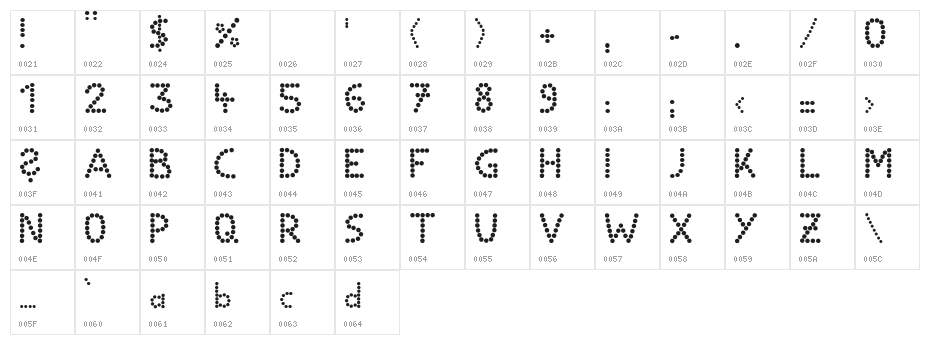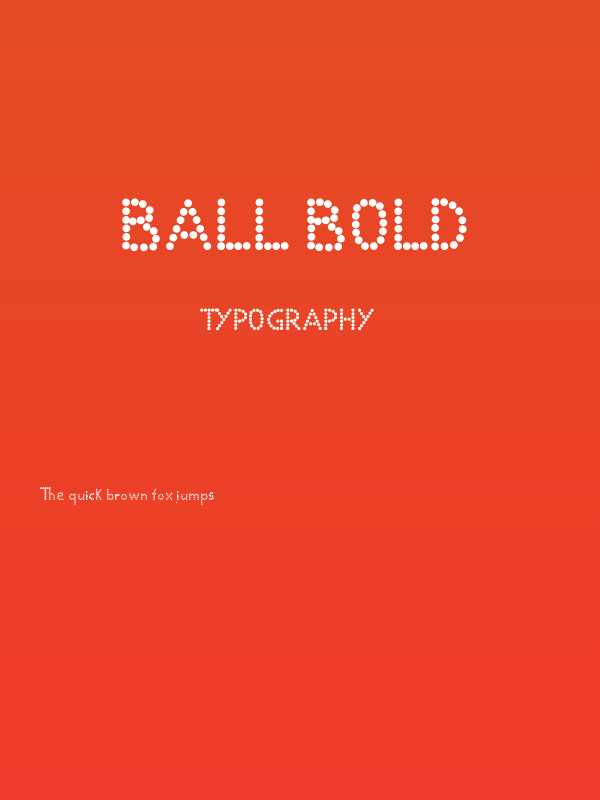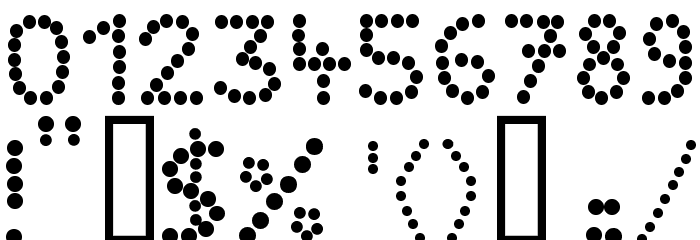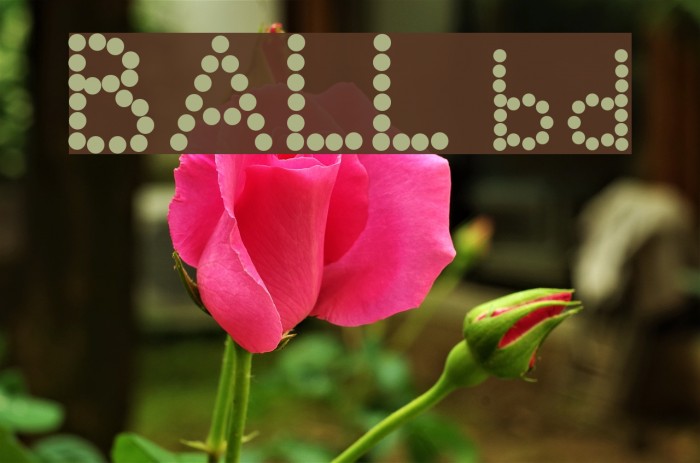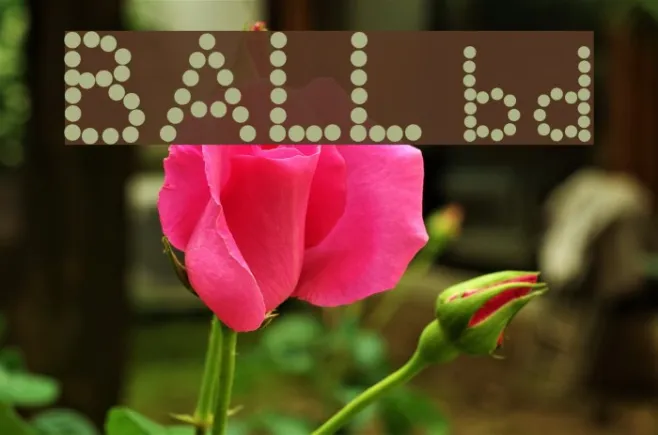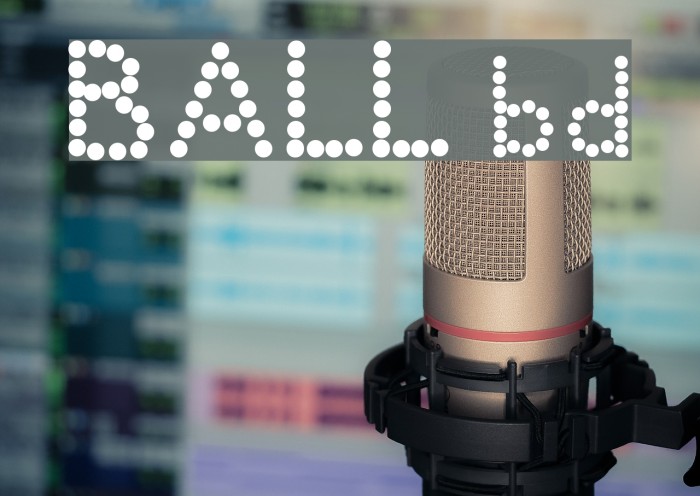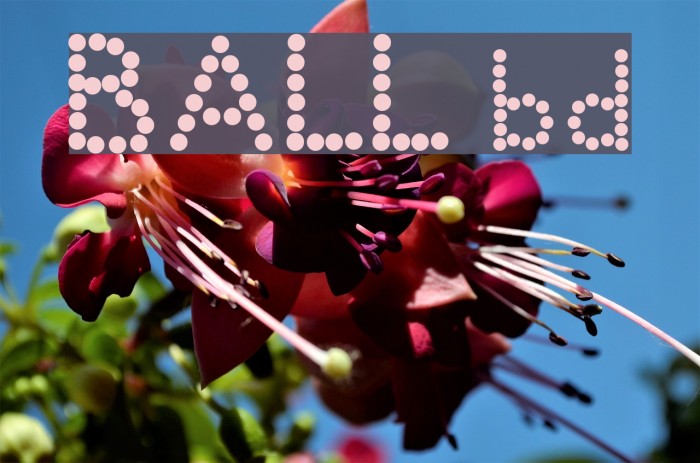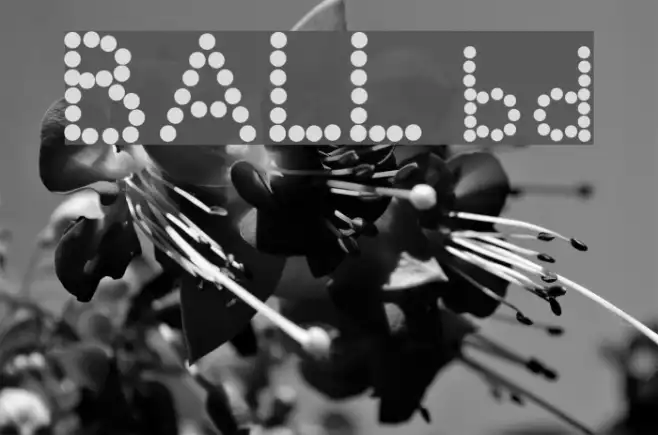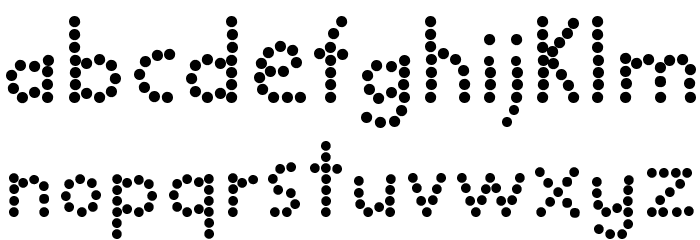
BALL bold Font
BALL bold Description
This font features a unique design where each character is constructed from a series of bold, evenly spaced dots. The circular elements create a playful and modern aesthetic, making it stand out as a decorative typeface. The uppercase and lowercase letters maintain a consistent style, with rounded edges and uniform dot sizes. Numbers and special characters follow the same dotted pattern, ensuring a cohesive look across all glyphs. This font's distinct appearance is both eye-catching and versatile, suitable for various creative applications.
| Proposed Projects | Ideal for creative projects such as posters, logos, children's books, and party invitations where a fun and distinctive look is desired. |